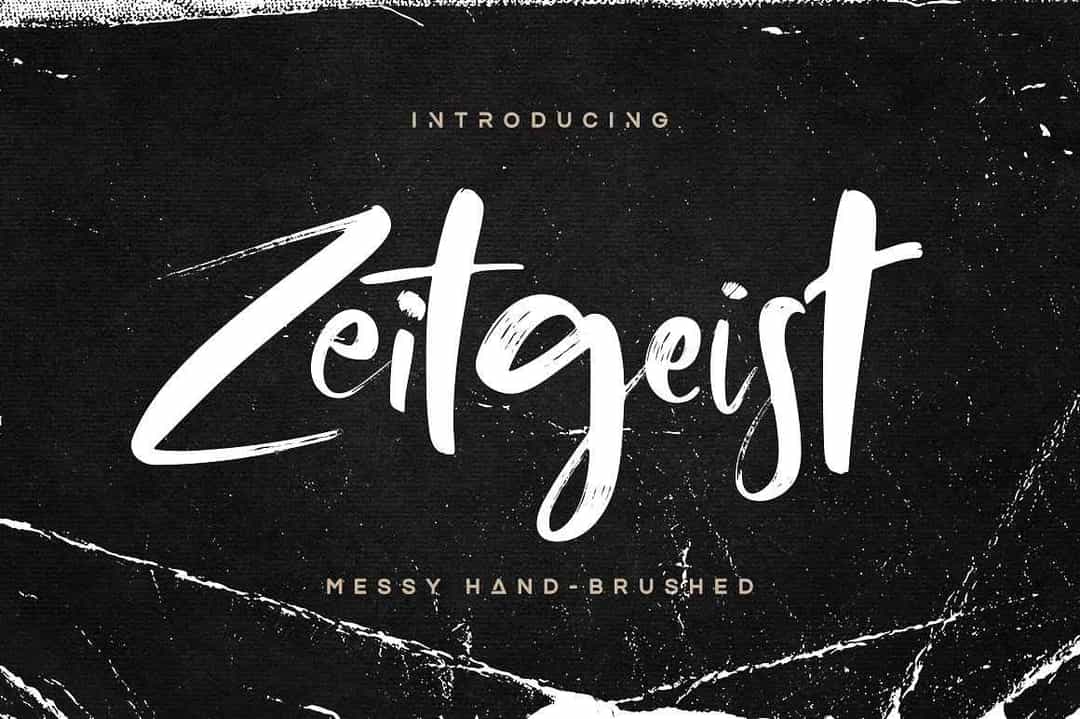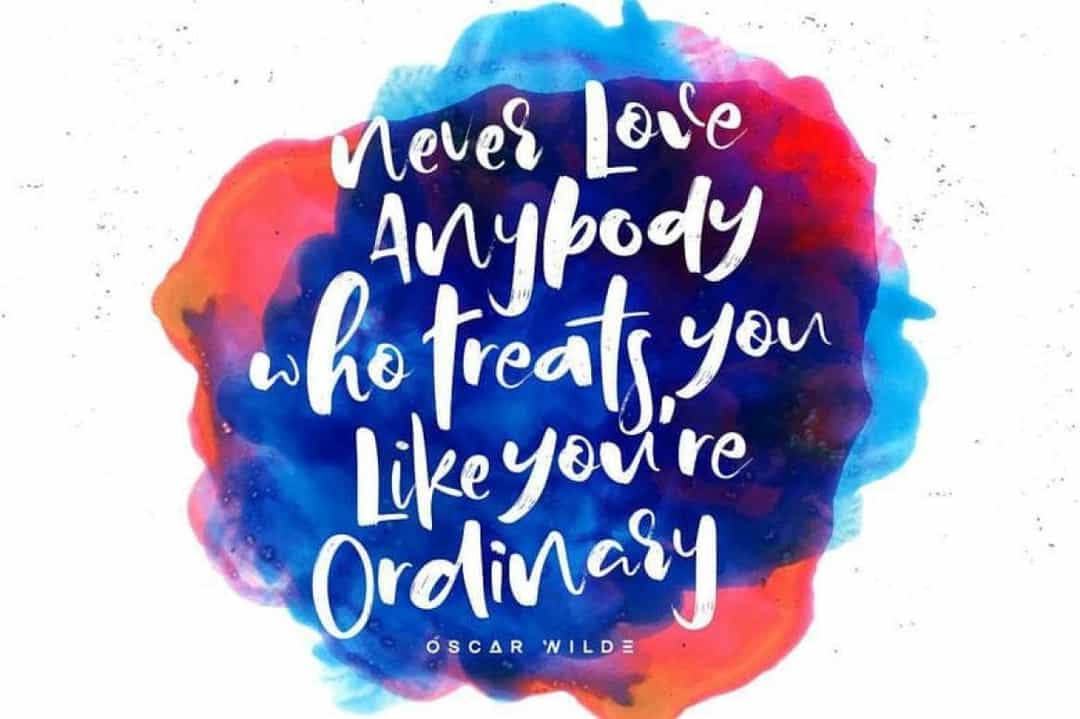
If you are looking for an interesting hand brushed font. Look no further! Introducing Zeitgeist; from Hindia Studio, with a creator and explorer through this fun, casual and new script font inspired by real handwriting! two styles which is written in the later and regular style, both of those scripts have highly-usable but charming amenity into layout. made to get noticed and make us happier or excited message scattered feel more blunt.message meandering freely!